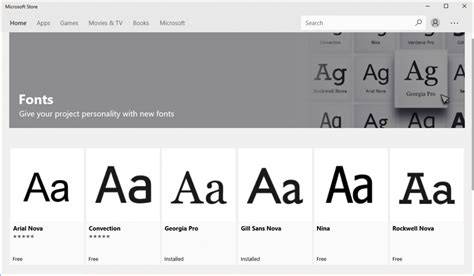
Fonts For Windows 10: Make Your Text Stand Out
Introduction:
As technology advances, typography is becoming more and more important. Without a doubt, the font you choose for your text can make or break the look of your documents. If you are using Windows 10, you have access to a whole range of fonts that you can use to make your text stand out. From modern to classic, there is a font for every purpose. In this article, we will explore some of the best fonts for Windows 10, so you can make your text look great.
Arial Font: A Classic Look
Arial is one of the most popular fonts for Windows 10. It is a sans serif font that is easy to read and has a classic look. It is often used in documents or on websites because of its familiarity. Arial has a range of different weights from Light to Bold, so you can choose the one that best suits your needs. It is also used in logos and branding materials.
Roboto Font: A Modern Look
Roboto is a font that was designed for use on mobile devices. It is a sans serif font with a modern look. It has a clean, geometric look that makes text easy to read. It is available in a range of weights from Regular to Bold. It is a great choice for contemporary documents and websites.
Calibri Font: An Elegant Look
Calibri is a font that was designed for use in Microsoft Office documents. It is a sans serif font that has an elegant look. It is available in a range of weights from Light to Bold. It is a great choice for documents that need to look professional and polished.
Georgia Font: A Stylish Look
Georgia is a serif font that was designed for use on screen. It has a stylish look that makes text look great on screen. It is available in a range of weights from Regular to Bold. It is a great choice for documents that need to look elegant and stylish.
Conclusion:
When it comes to choosing the right font for your text, there are a lot of options available for Windows 10. From classic to modern, there is a font for every purpose. Arial, Roboto, Calibri, and Georgia are some of the best fonts for Windows 10. They are all easy to read and have a range of different weights so you can choose the one that best suits your needs. So make sure you choose the right font for your text and make your text stand out.